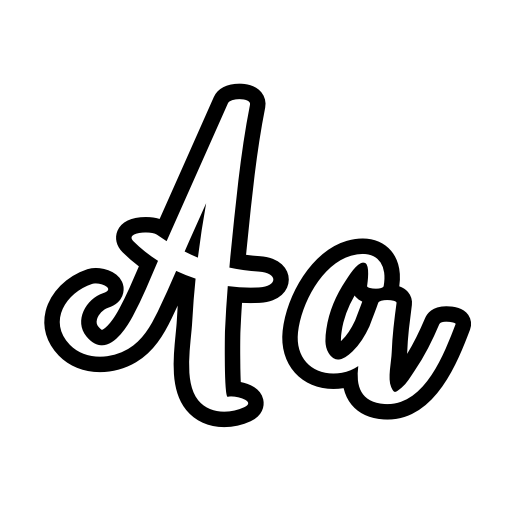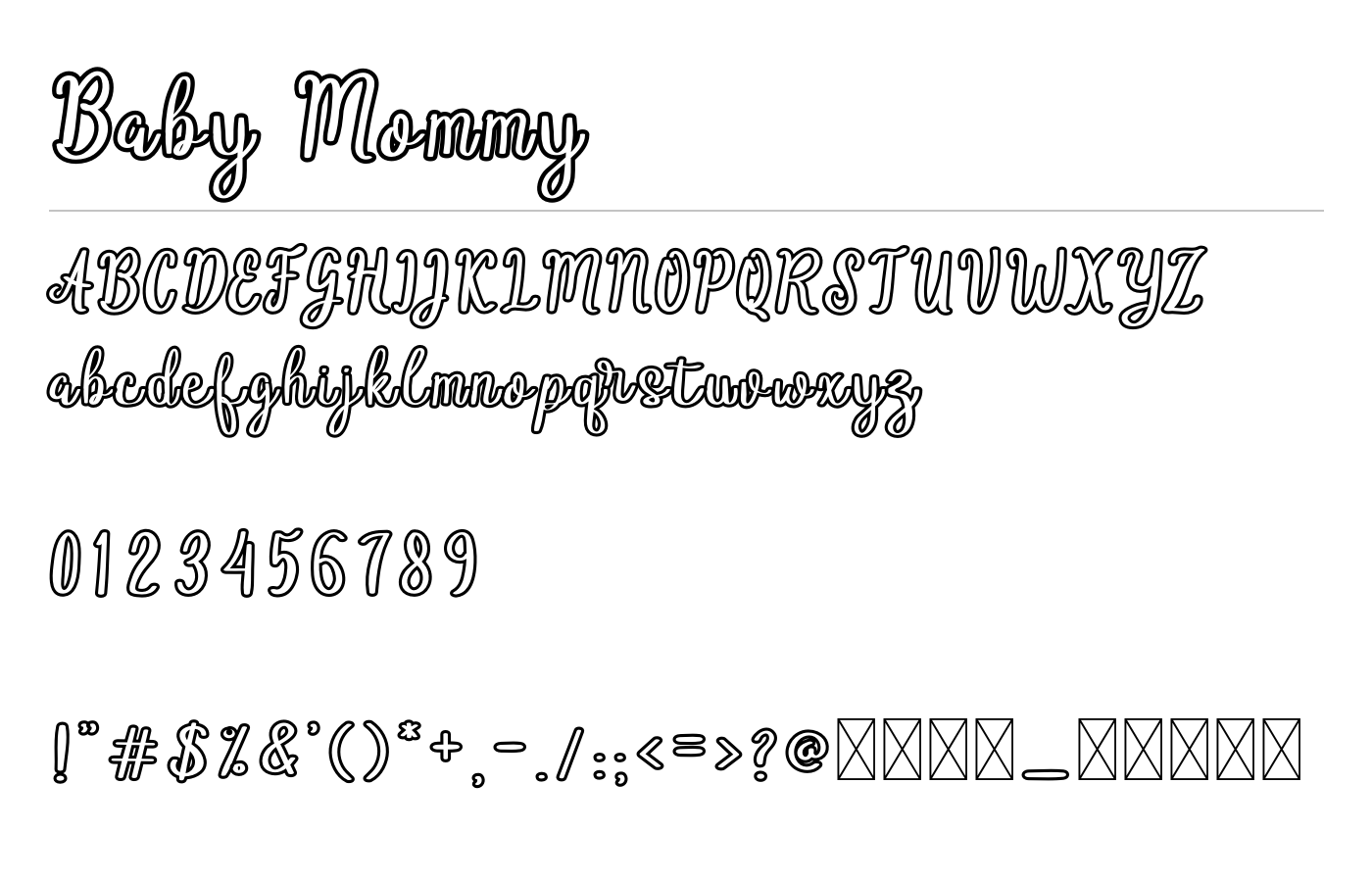
Baby Mommy is a playful and charming script font with a bold outline that gives it a friendly, approachable feel. Its tall, rounded letterforms and slight slant combine a hand-drawn, casual style with good readability, making it ideal for kids’ products, invitations, and creative branding. This font works well for headlines and logos where a warm, inviting personality is desired.
Baby Mommy Font